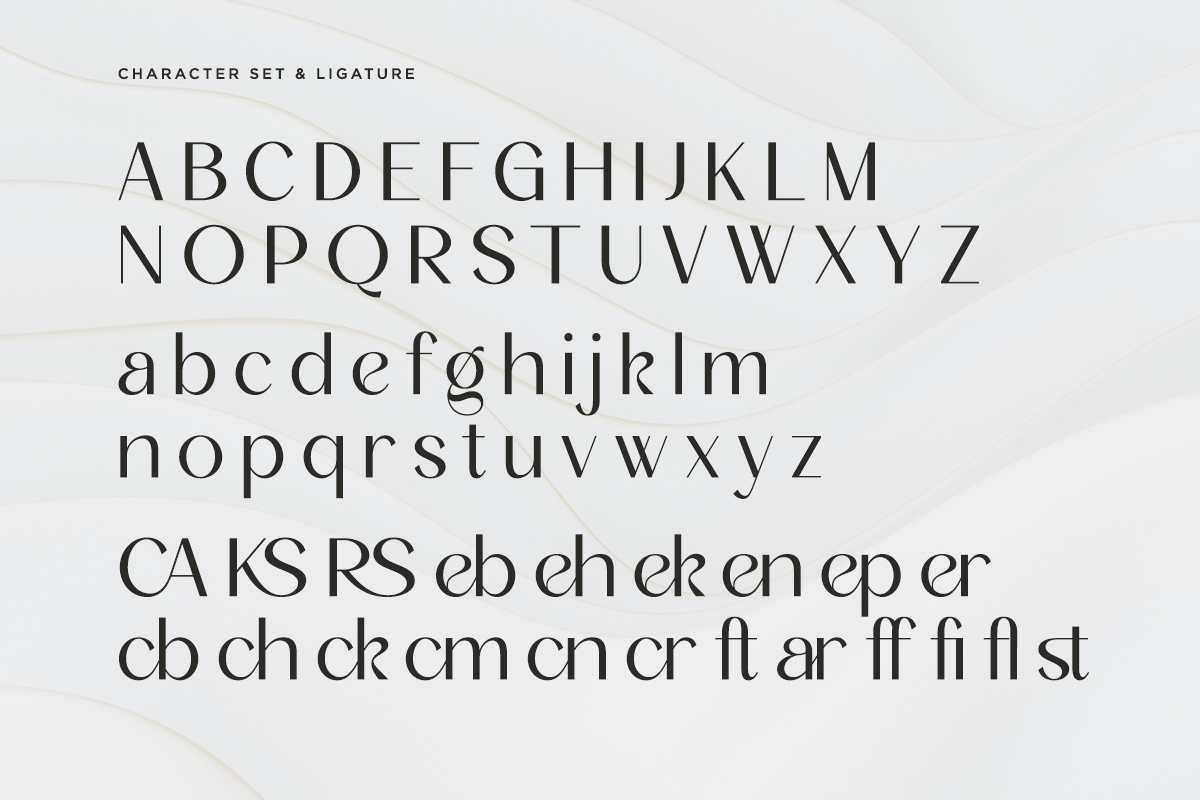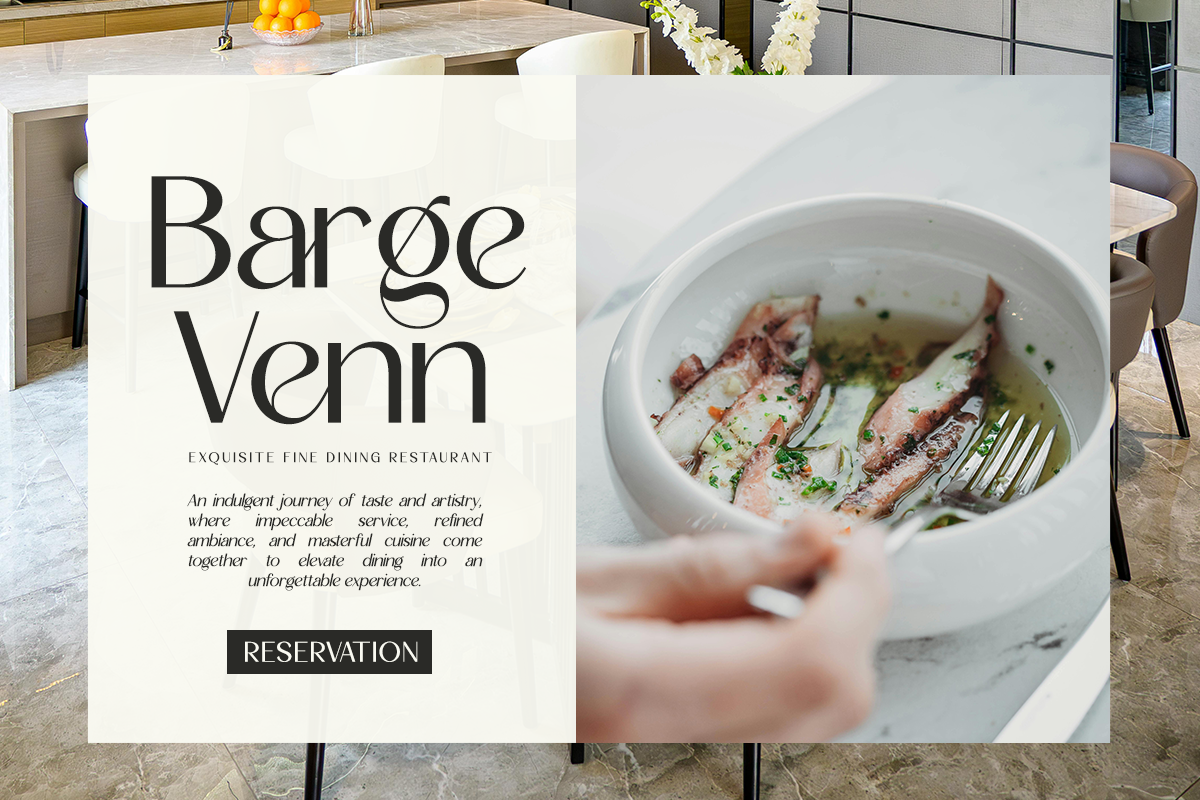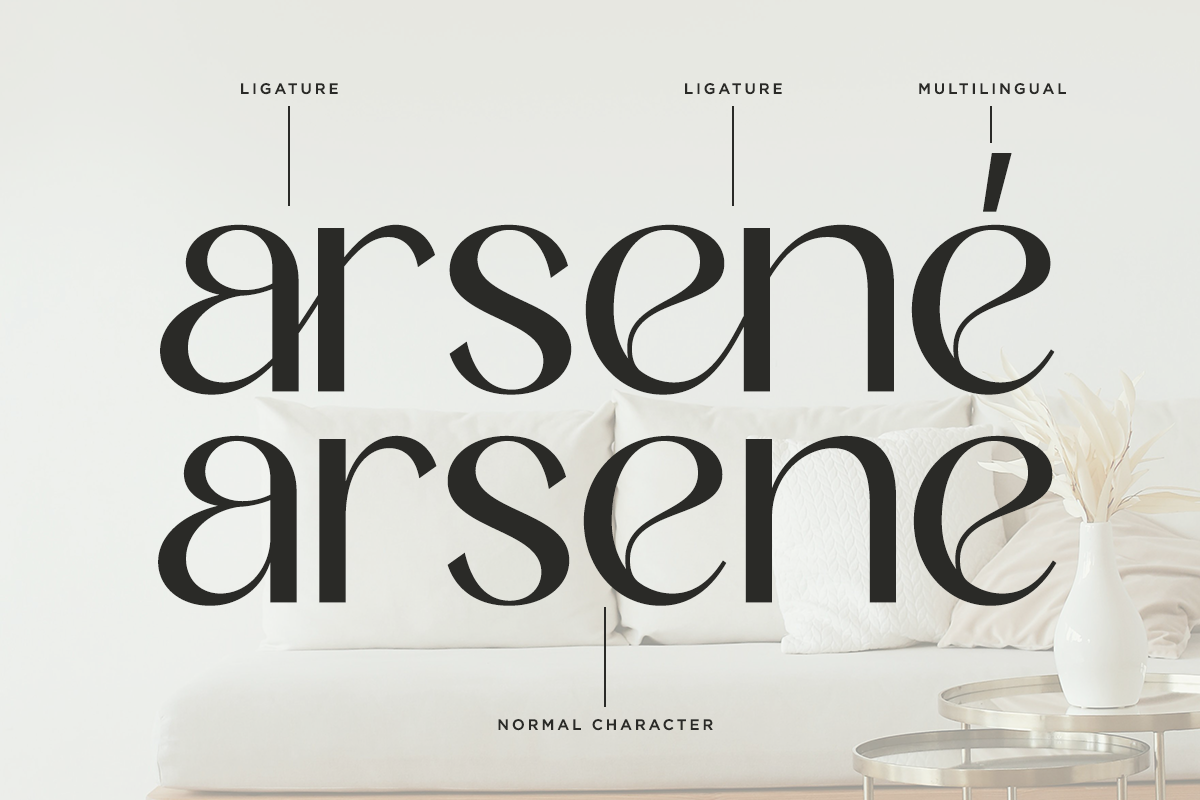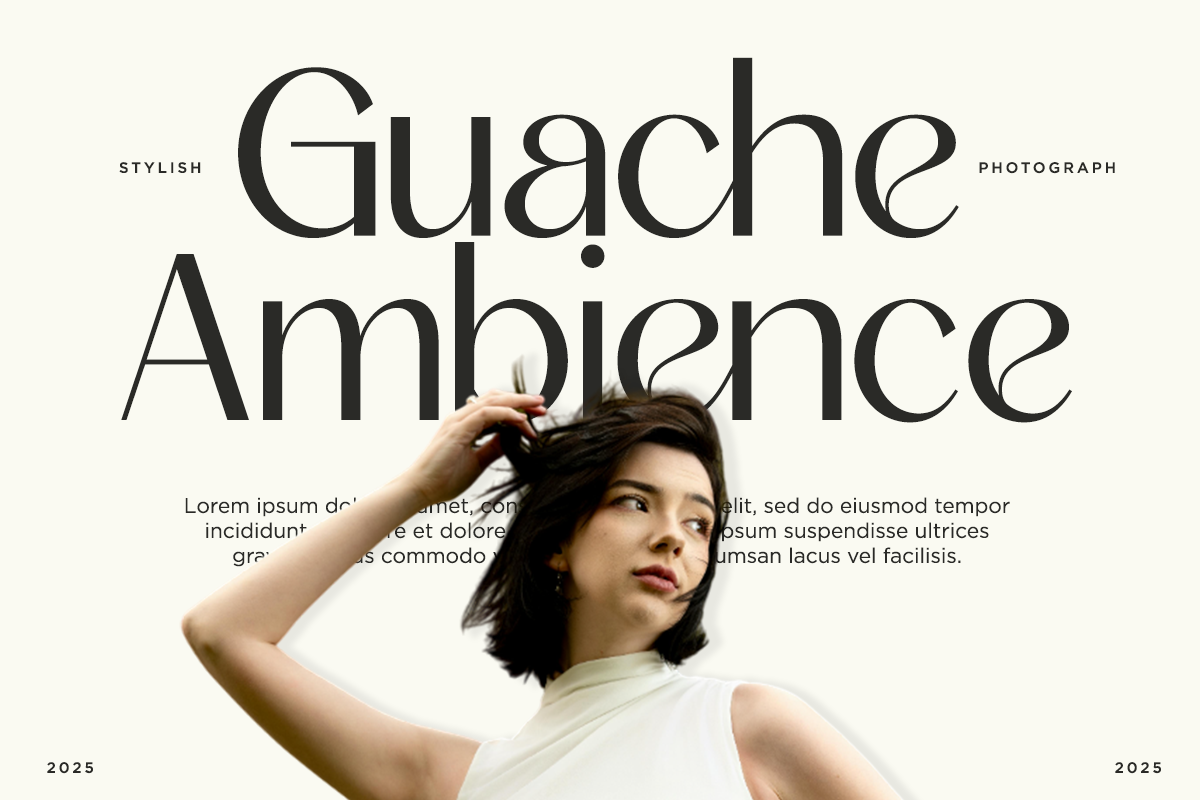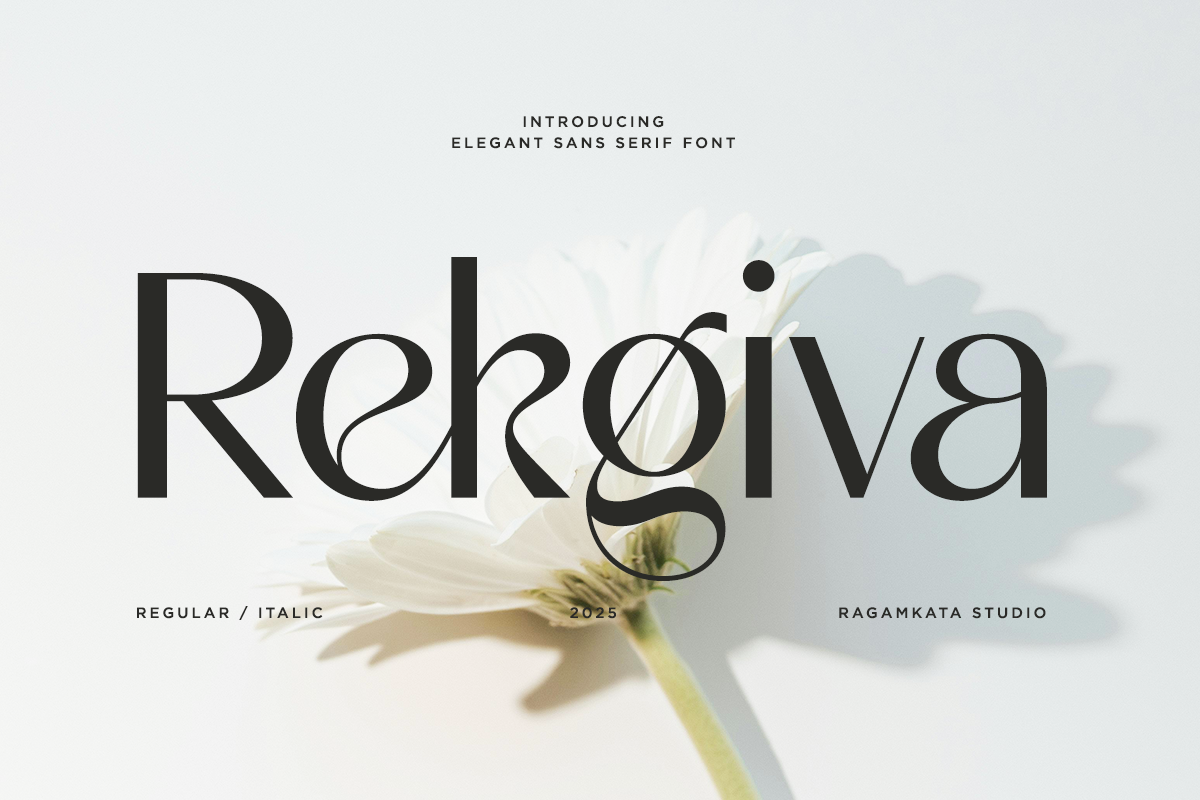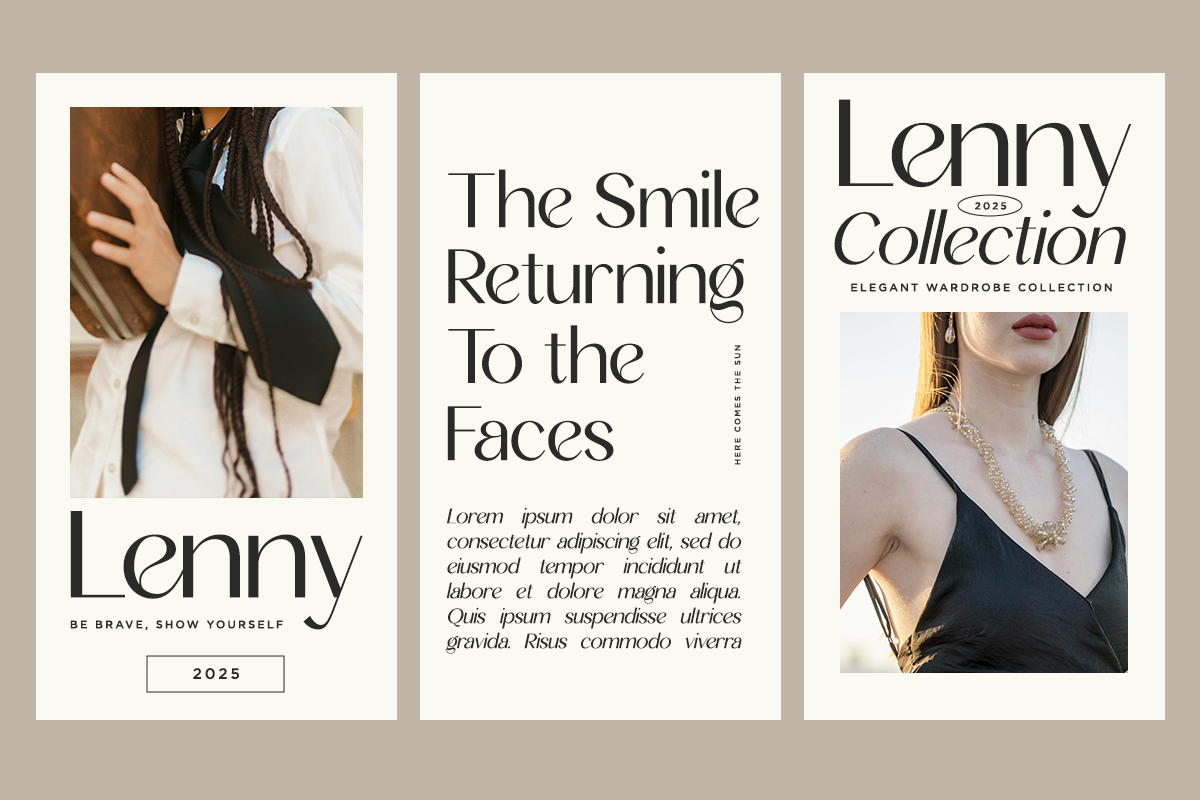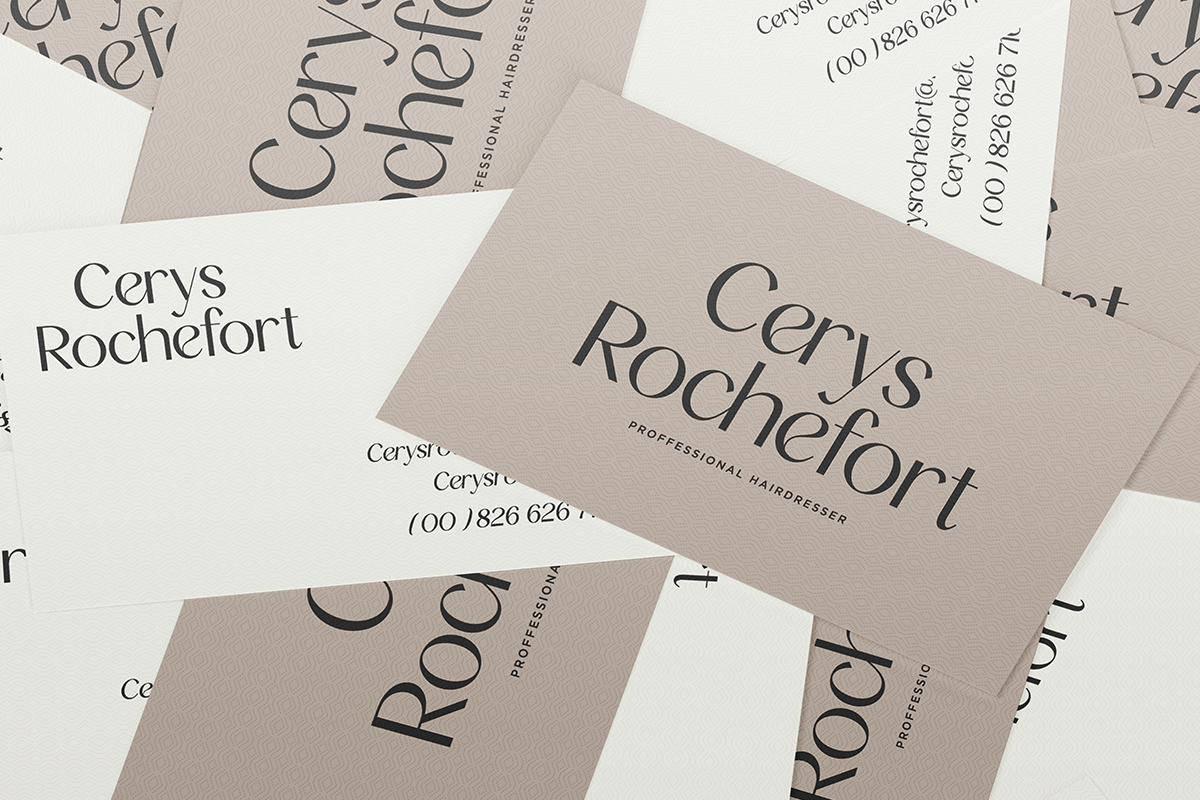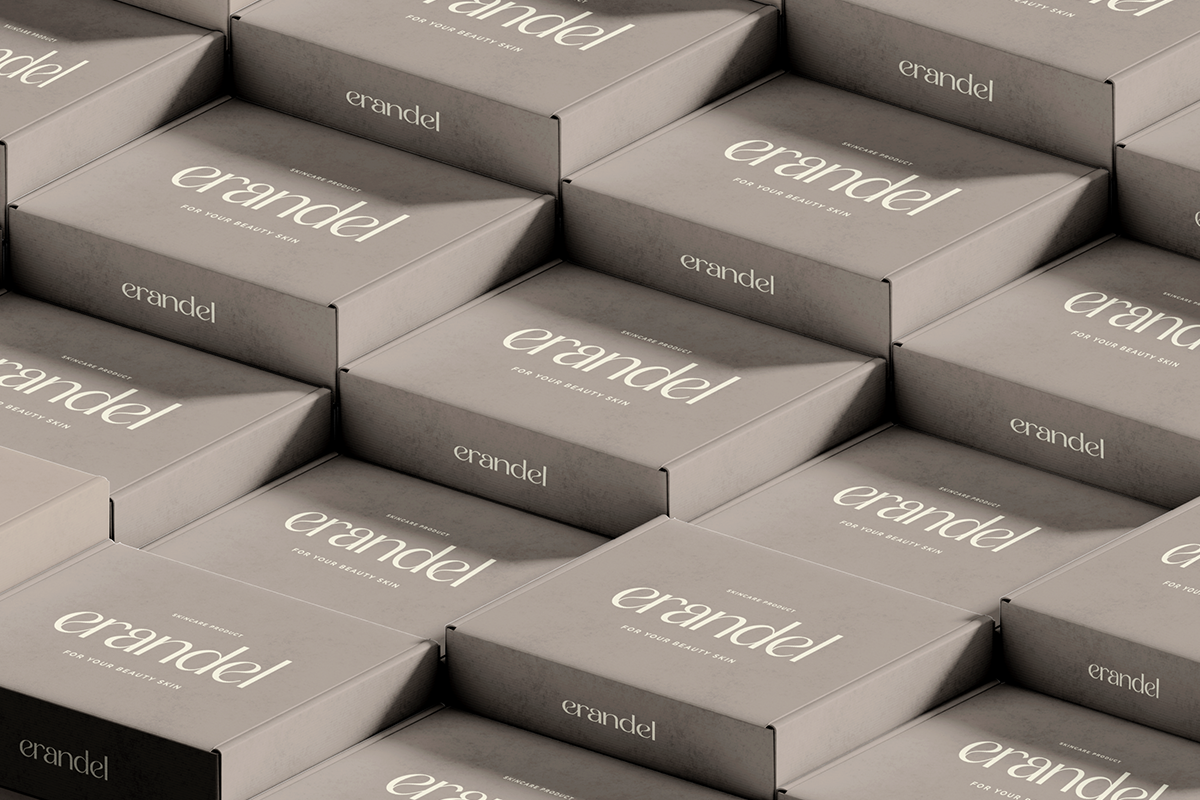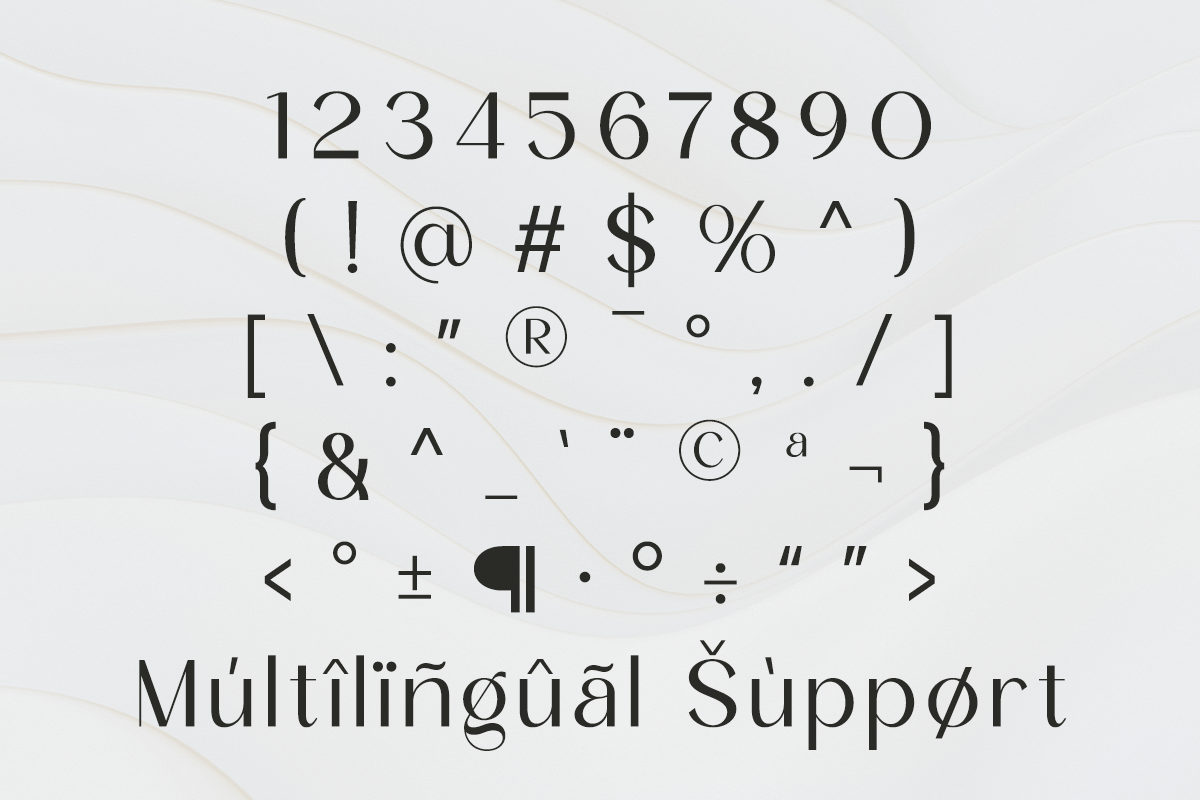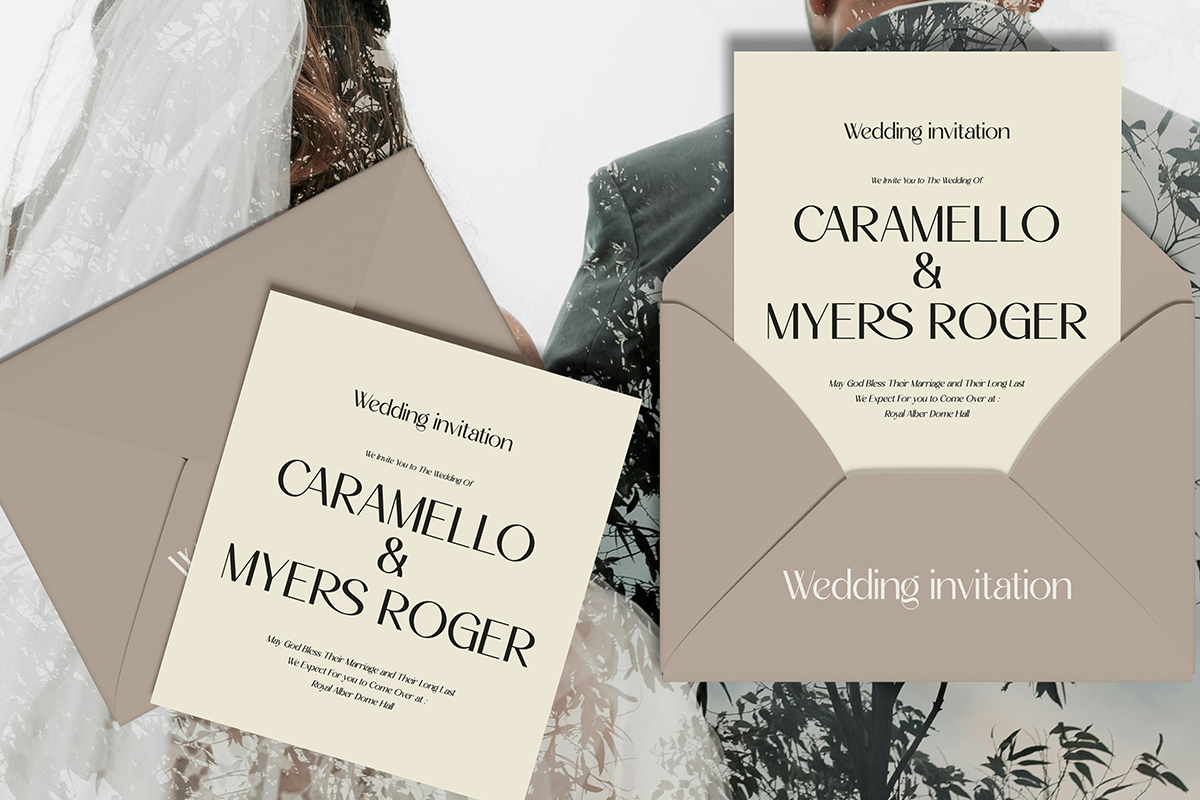
Rekgiva - Elegance Sans Font
Rekgiva is an elegant serif font crafted to infuse sophistication and style into your creative work. Its flowing curves and crisp serifs achieve a seamless blend of timeless charm and contemporary flair. This makes it an ideal choice for branding, editorial designs, invitations, and packaging that call for a polished, refined aesthetic.
- Stylish Ligature Set
- Number, and Symbol